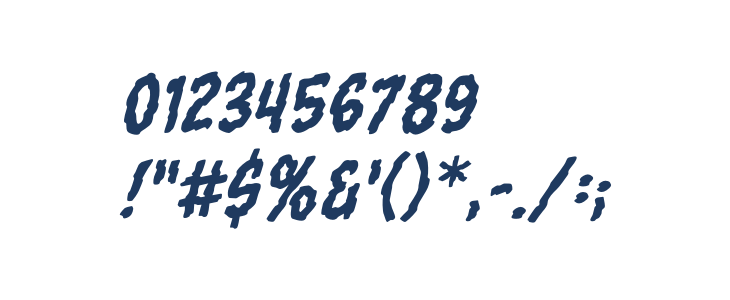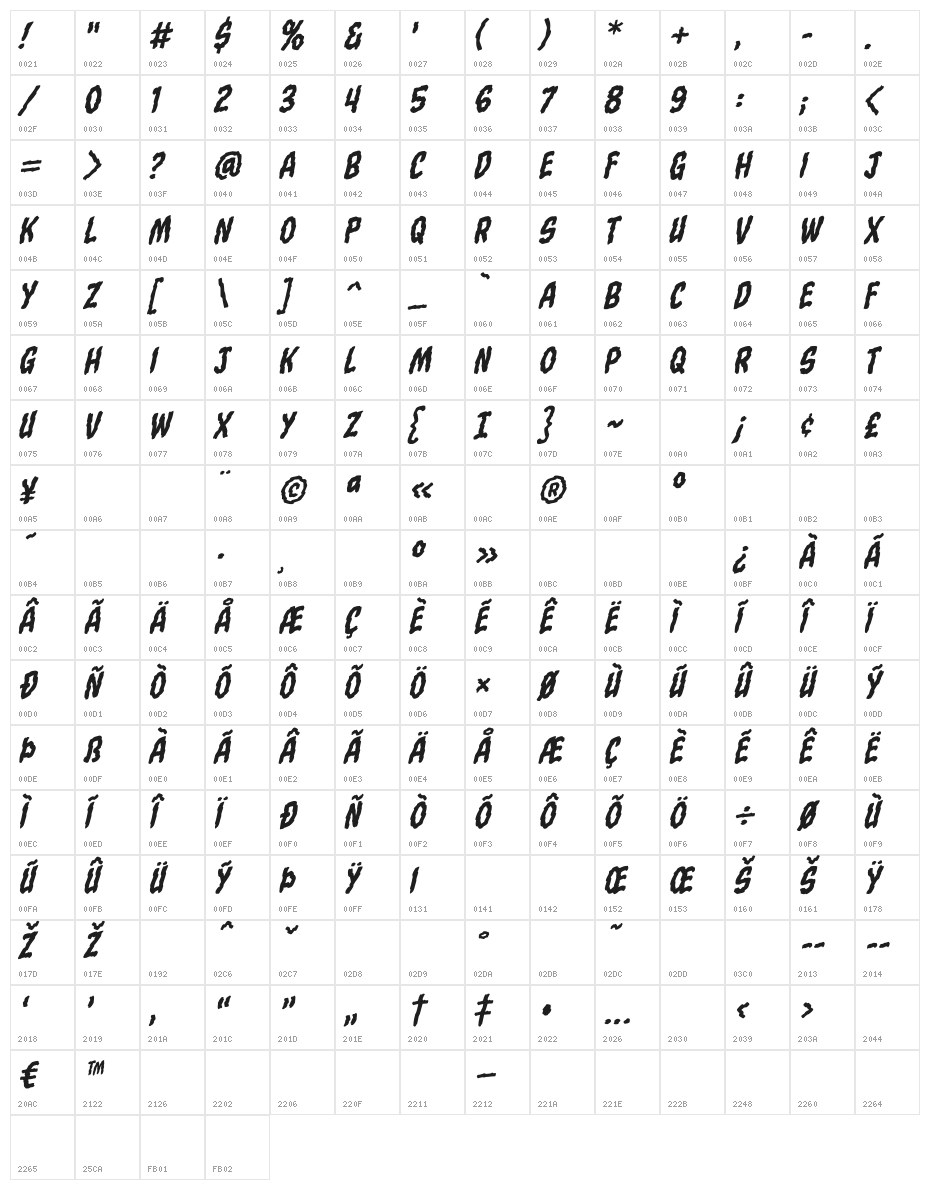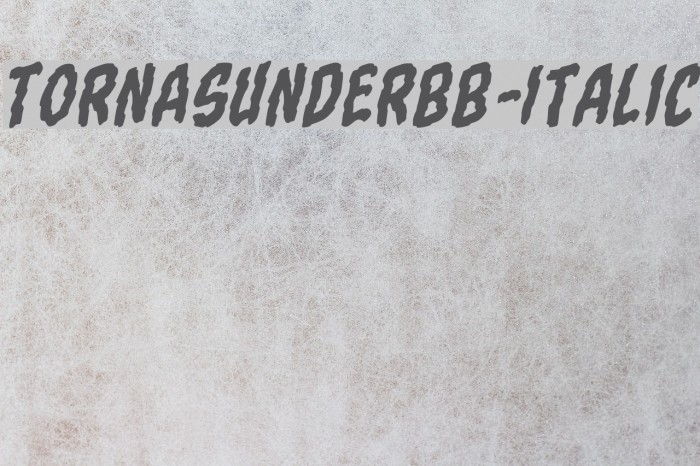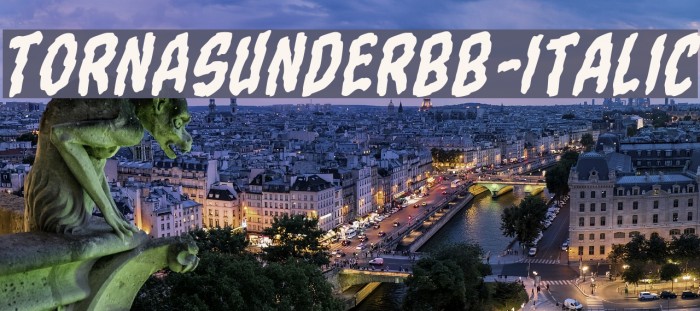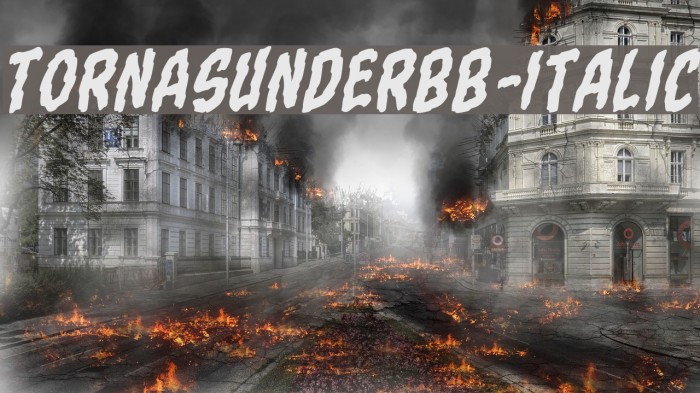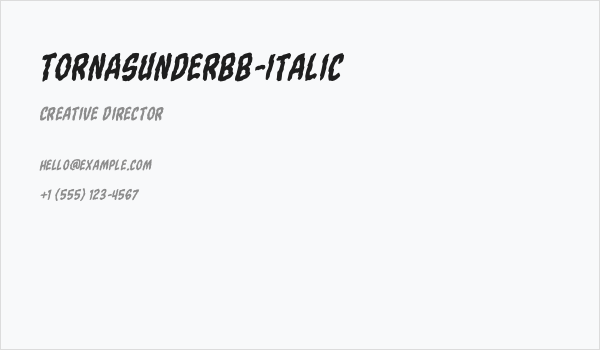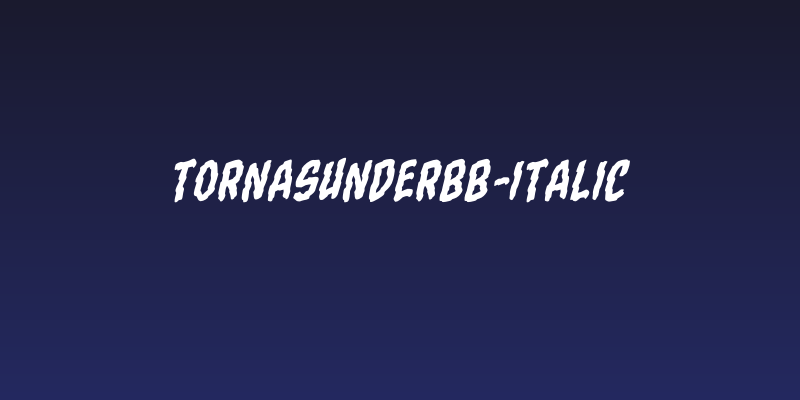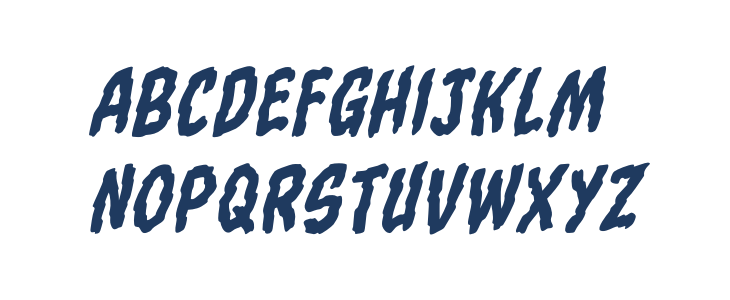
TornAsunderBB-Italic Font
TornAsunderBB-Italic Description
This font features a bold, italicized style with a rugged and distressed appearance. The characters are heavily stylized, giving them a dynamic and energetic feel. The uppercase and lowercase letters maintain a consistent slant, enhancing the italic effect. The numbers and special characters follow the same design principles, ensuring uniformity across all glyphs. The font's thick strokes and rough edges contribute to its distinctive, edgy look, making it stand out in any design. Its unique style is perfect for projects that require a bold statement or a touch of rebellious flair.
Proposed ProjectsIdeal for posters, album covers, branding for edgy products, or any design needing a bold, rebellious touch.